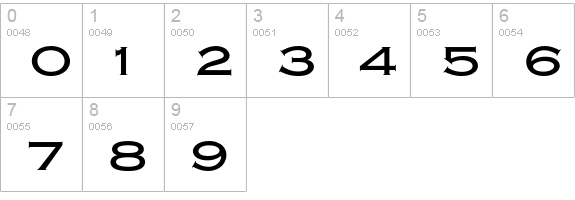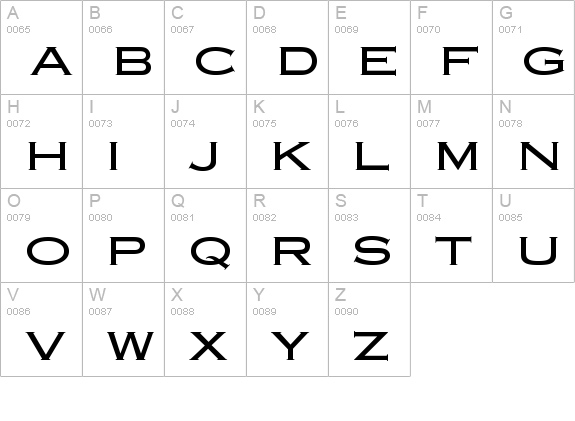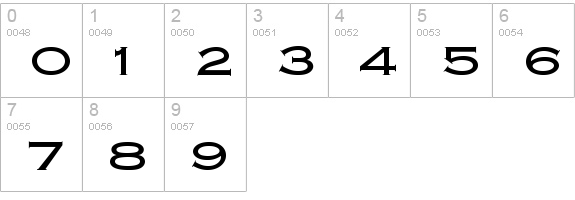
Copperplate Gothic Heavy Extended Font Details
Copperplate Gothic Heavy Extended is a heavy, high-impact, extended-width variant in the Copperplate typeface family \xE2\x80\x94 well suited to high-impact headlines, posters, and display advertising.
Copperplate Gothic Heavy Extended is a bold and striking font that exudes strength and sophistication. Its sleek and elegant design makes it perfect for creating eye-catching headlines and titles that command attention. With its distinct geometric shapes and sharp edges, this font is ideal for projects that require a modern and powerful look. What sets Copperplate Gothic Heavy Extended apart is its versatility - it can be used in a variety of design projects, from posters and advertisements to logos and branding. The clean lines and generous spacing of this font make it highly legible and easy to read, even at smaller sizes. And the best part? Copperplate Gothic Heavy Extended is available for free download at FontsMarket.com. Now you can add this stylish and impactful font to your collection without breaking the bank. Don't miss out on the opportunity to elevate your designs with Copperplate Gothic Heavy Extended today!